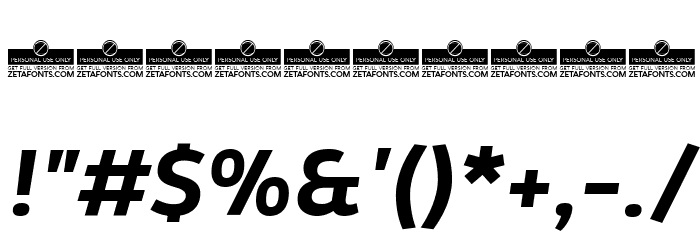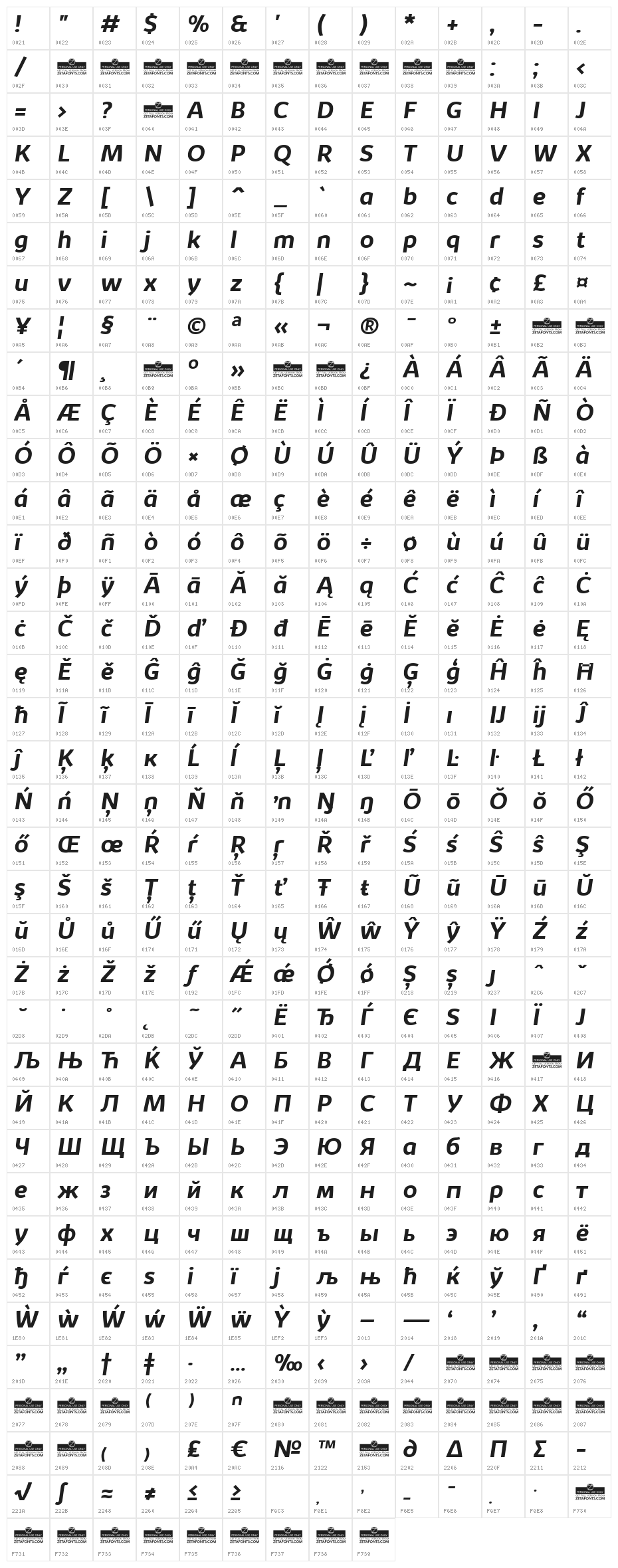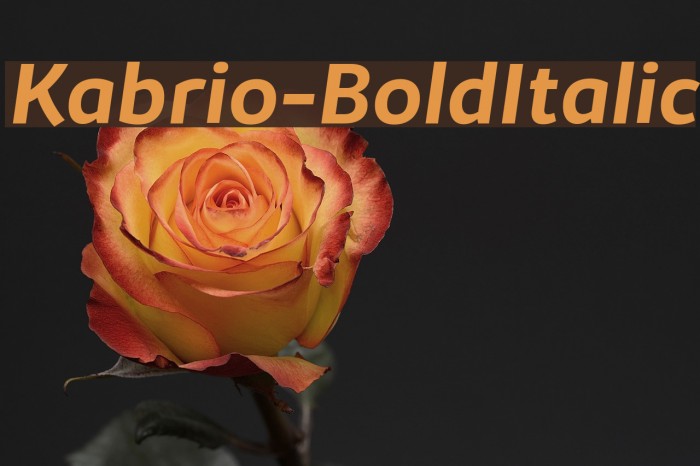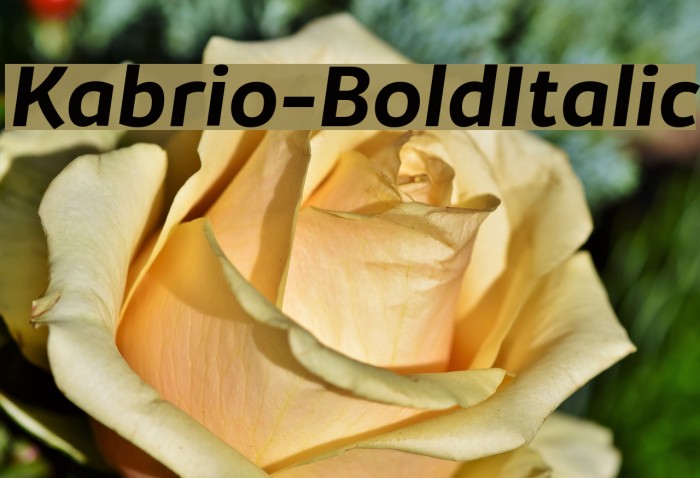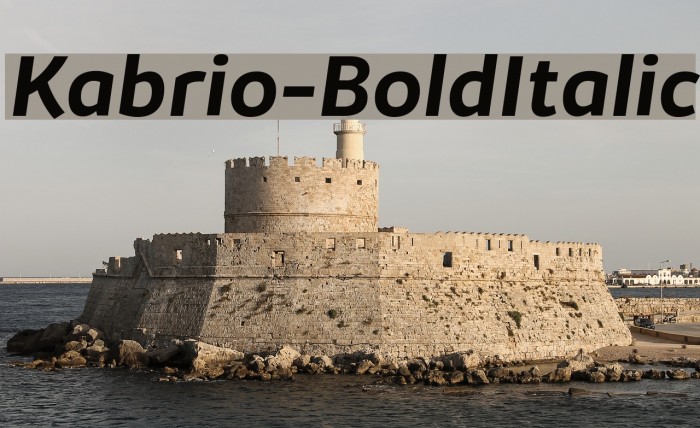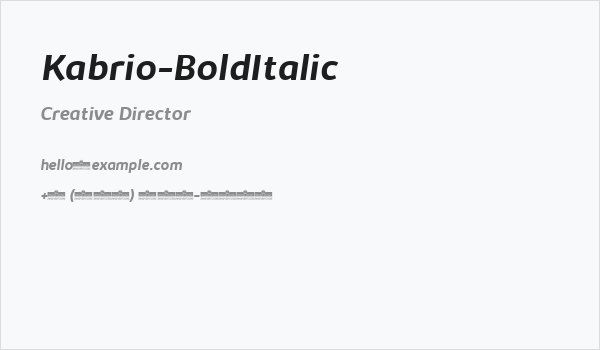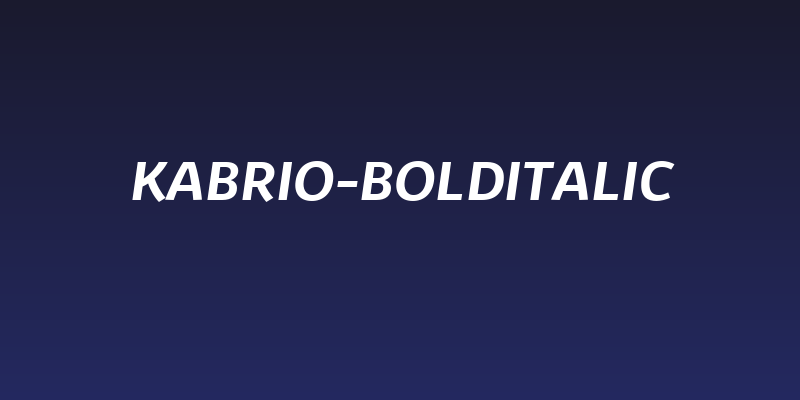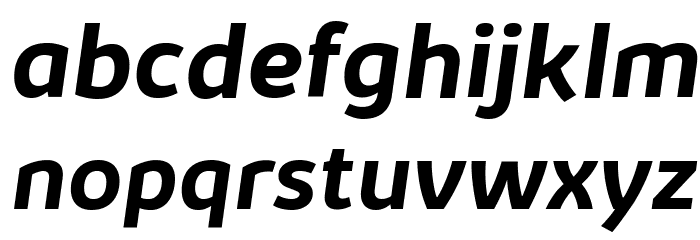
Kabrio-BoldItalic Font
Kabrio-BoldItalic Description
This font features a bold and italicized style, offering a modern and dynamic appearance. The characters are slightly slanted, adding a sense of movement and energy. The strokes are consistent in thickness, providing a clean and uniform look. The uppercase and lowercase letters are well-proportioned, ensuring readability and balance. The numerals and special characters maintain the same boldness and style, making them cohesive with the alphabet. This font is versatile, suitable for various design projects that require a strong and contemporary aesthetic.
| Use Case | Headlines, Logos, Advertising |
| Proposed Projects | Ideal for branding, advertising, headlines, and digital media where a strong and modern presence is needed. |